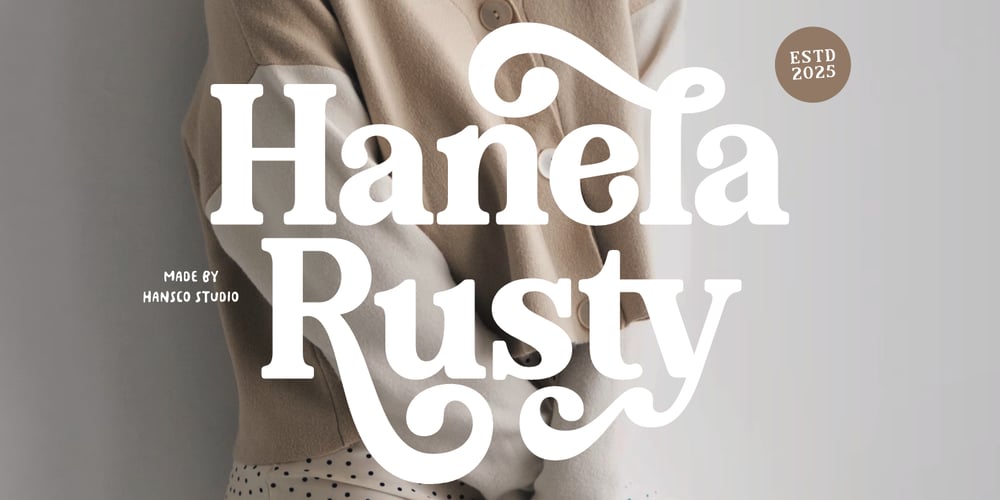
Hanela Rusty Font Family was designed by Burhan Afif and published by HansCo. Hanela Rusty contains 1 styles and family package options. Hanela Rusty Font is a simple & bold retro vintage serif font style. You will also get additional alternative swash character fonts that make your design projects amazing. Use this display font to add that special retro vintage touch to any design idea you can think of!. Equipped with all complete characters ranging from uppercase letters, lowercase letters, numbers, punctuation marks and multi-lingual support, this font is ready to be used in any project. Very suitable for logotype, Stickers, Packaging design, Cricut Project, headlines, brand identity, t shirt or apparel industry, posters, magazines, books, YouTube, Instagram, websites, or any of your creative design projects.